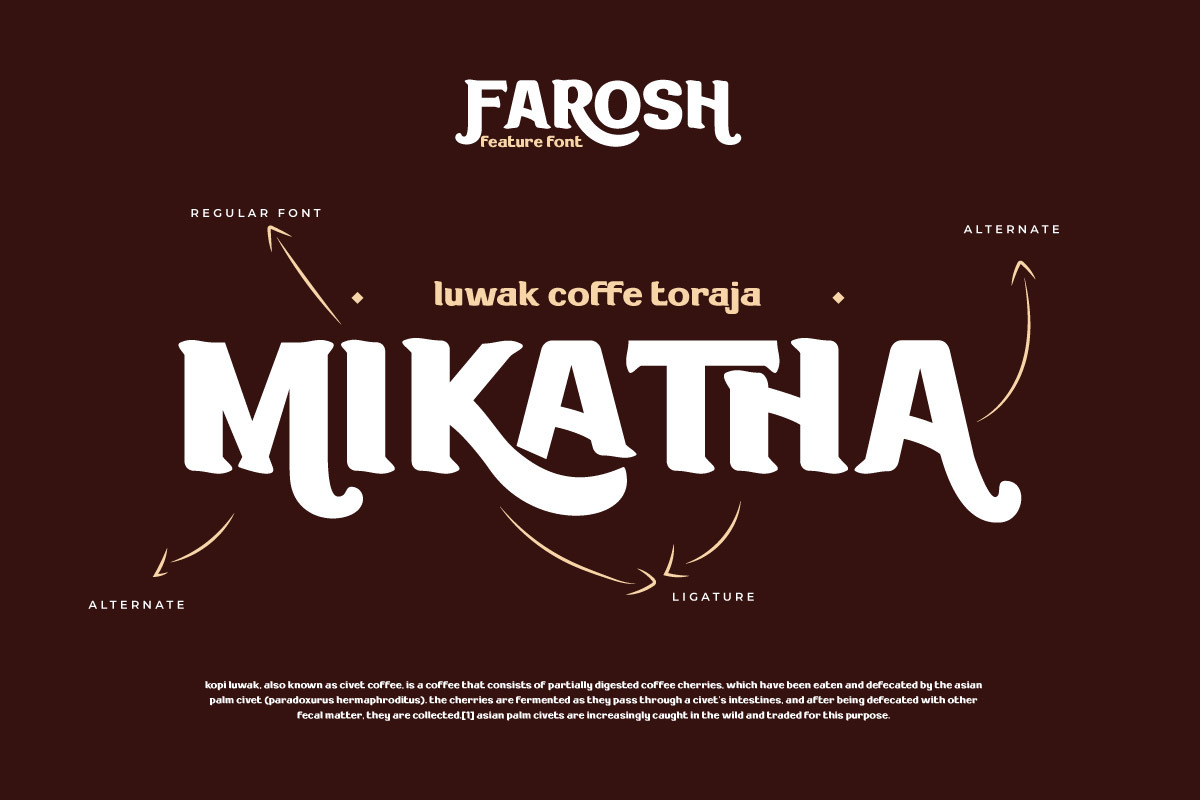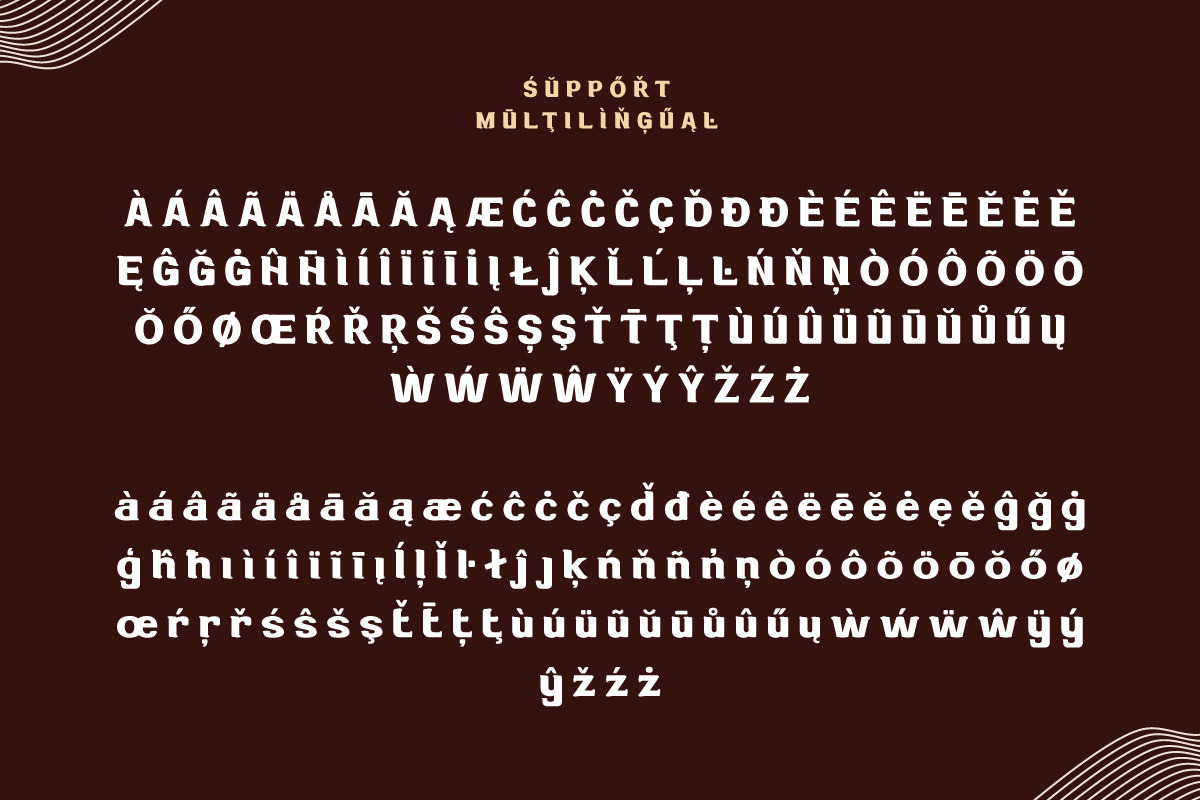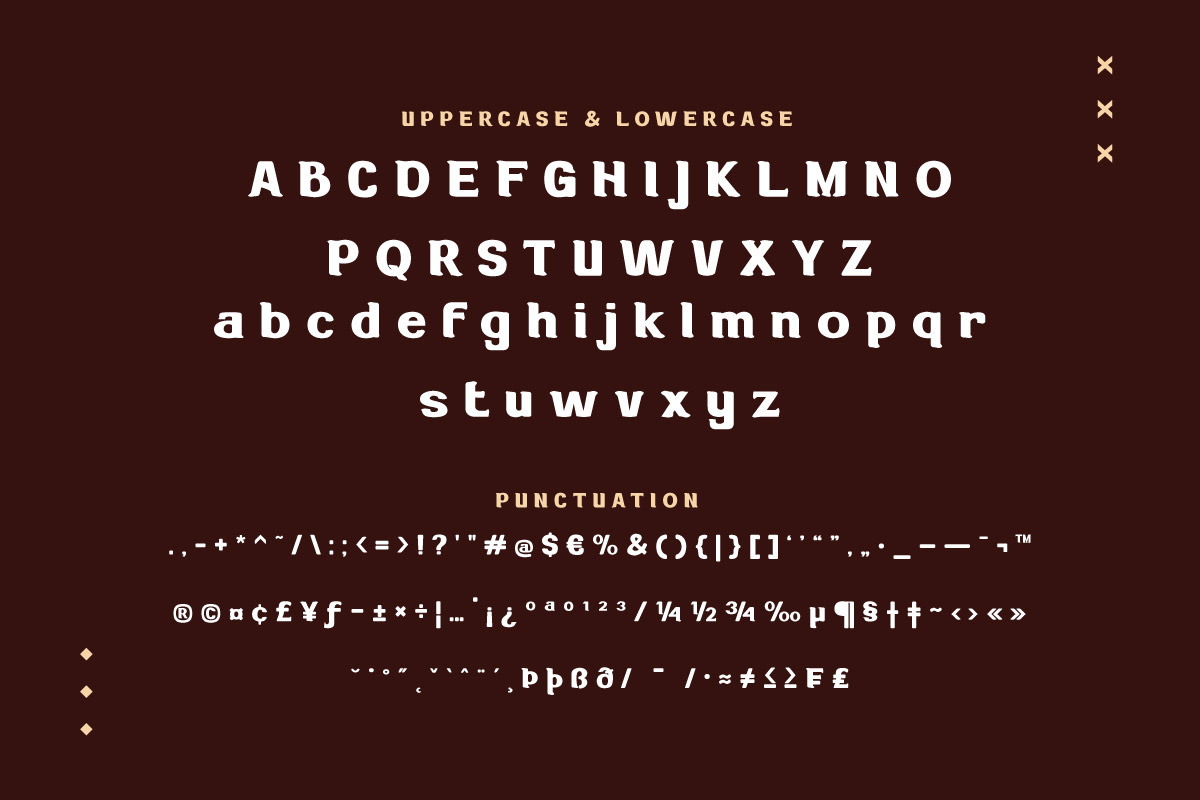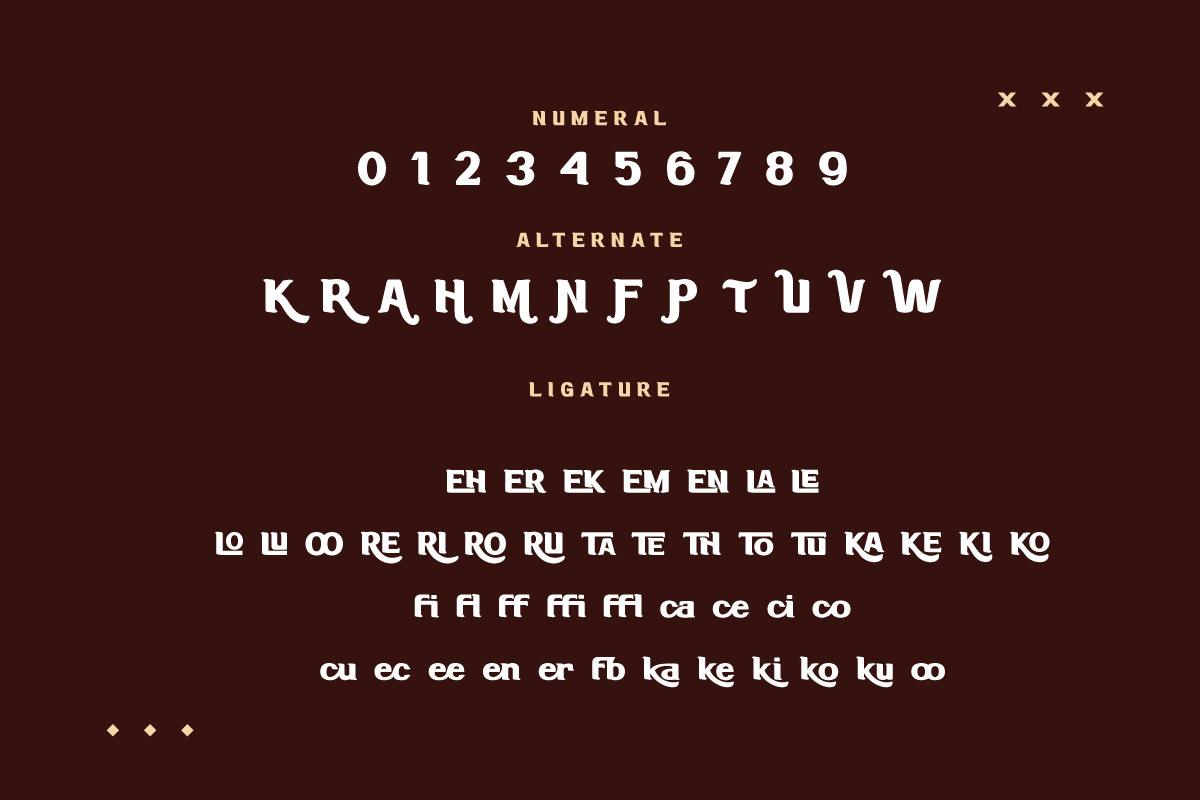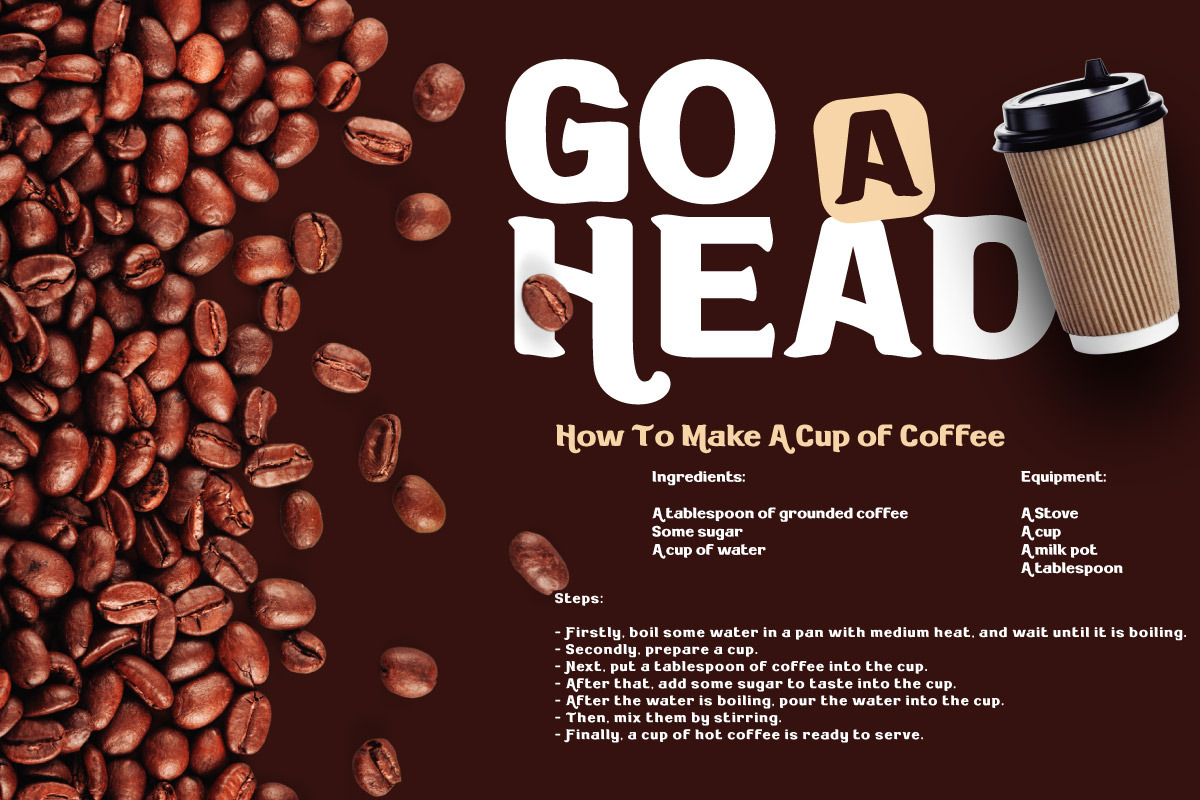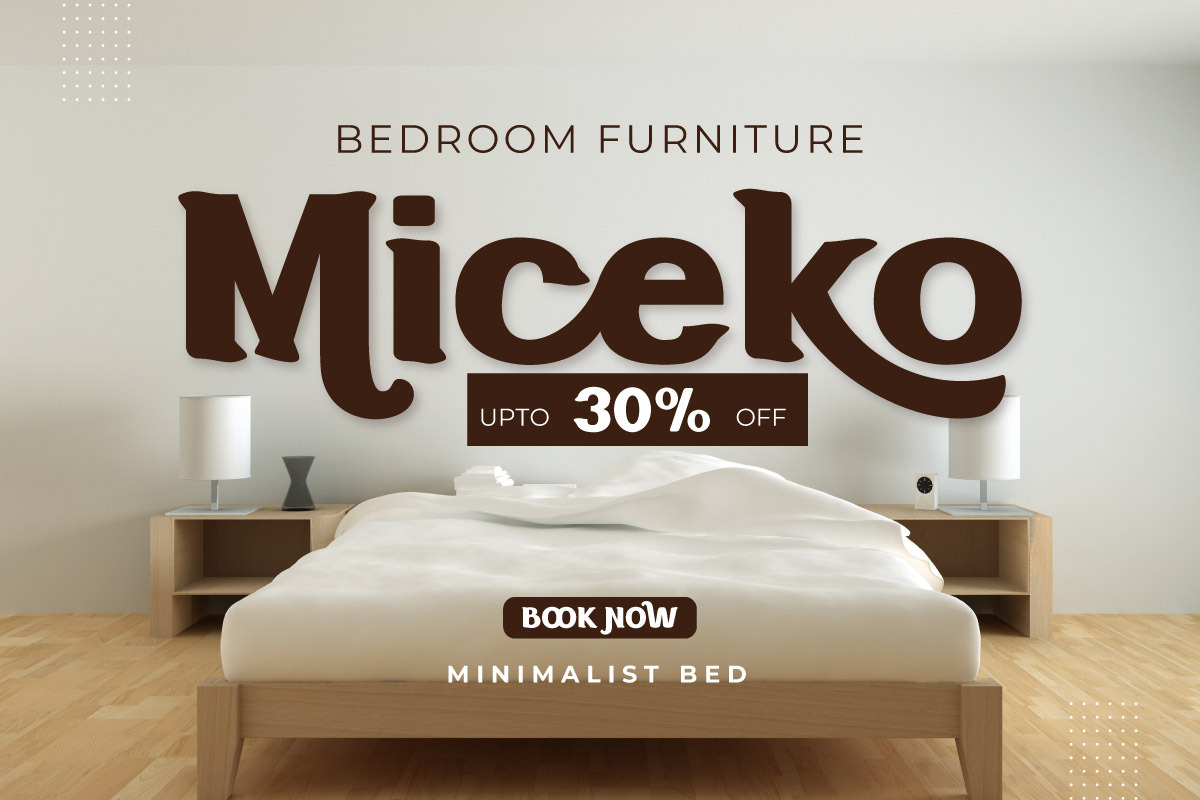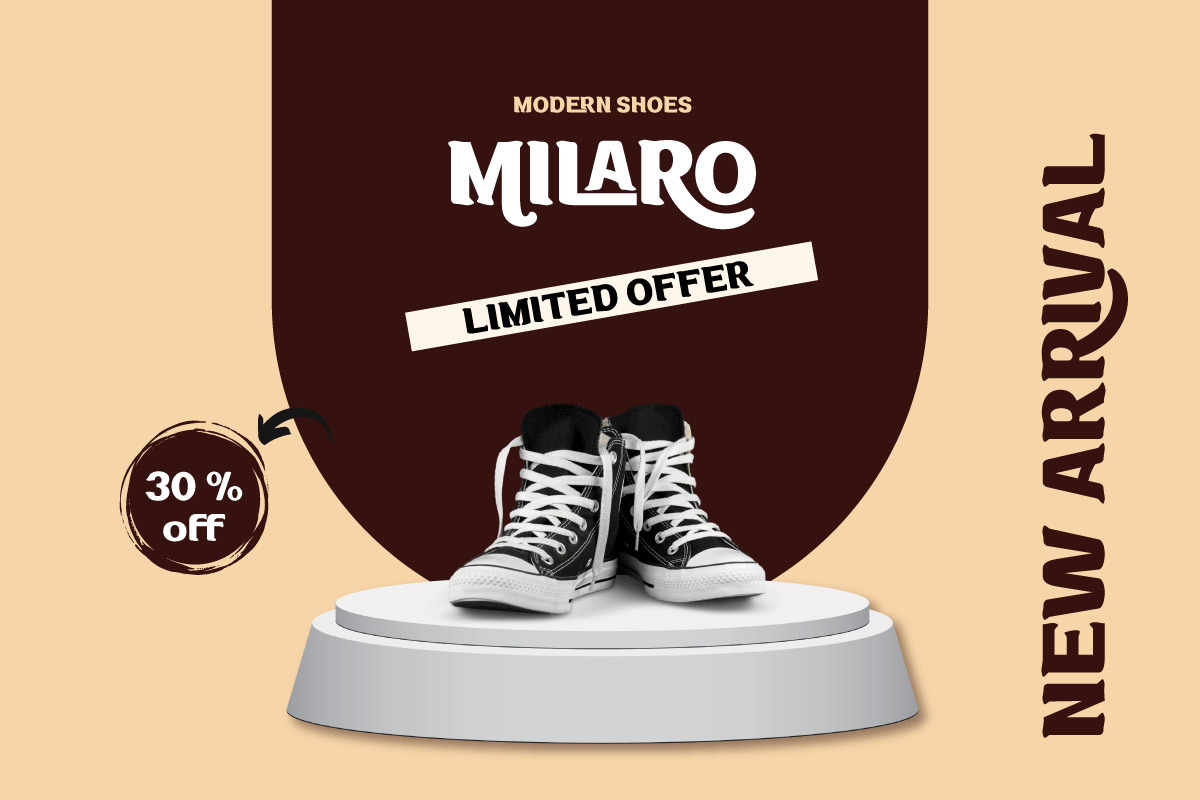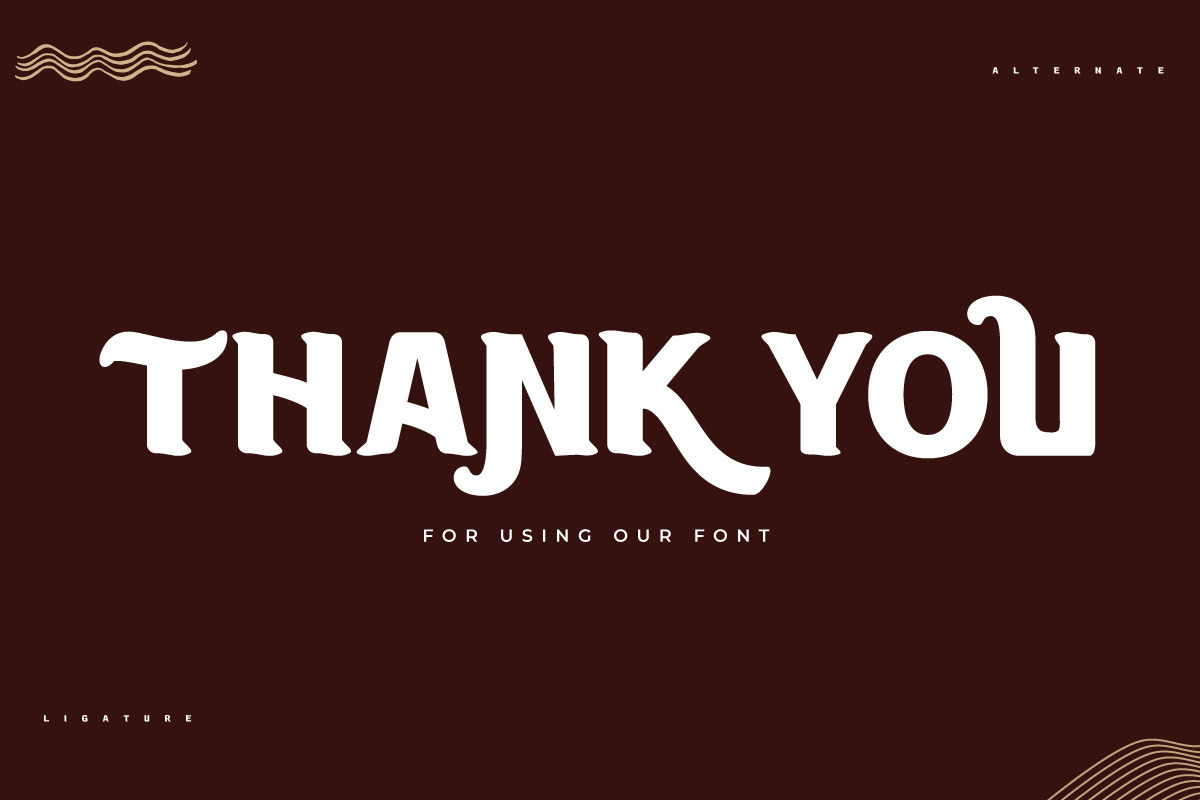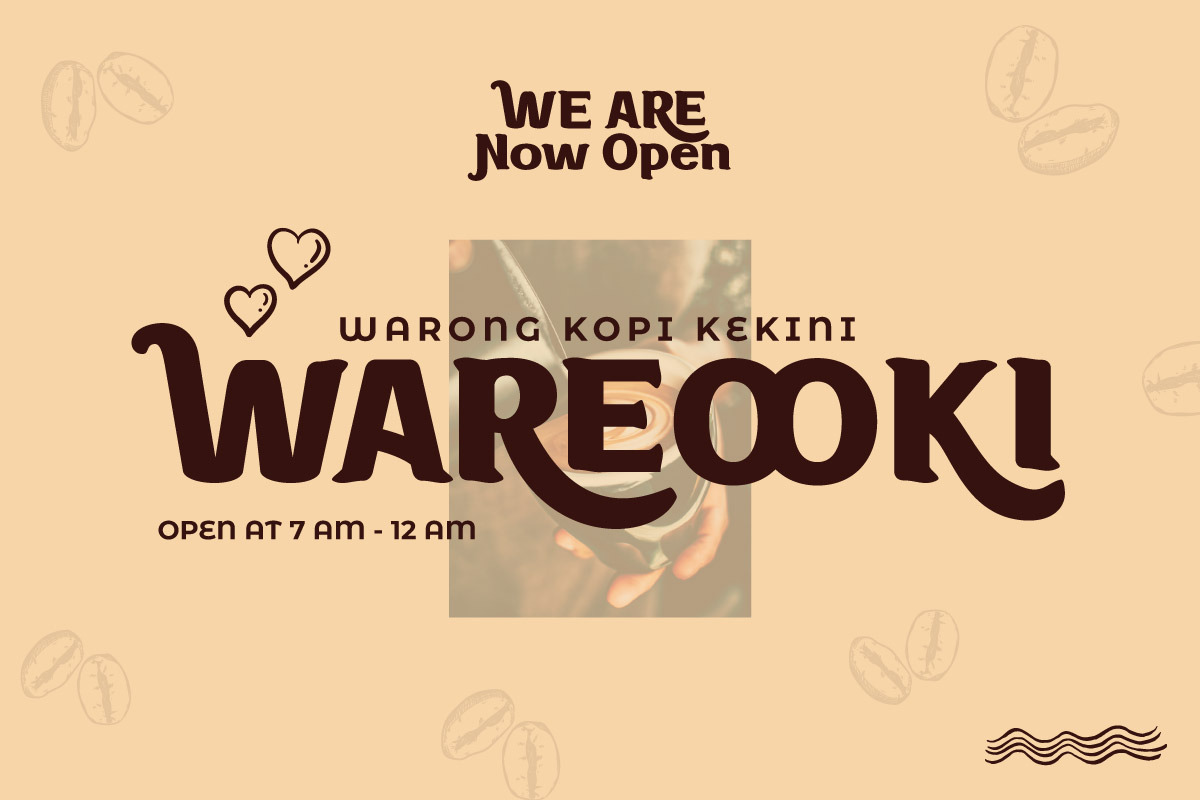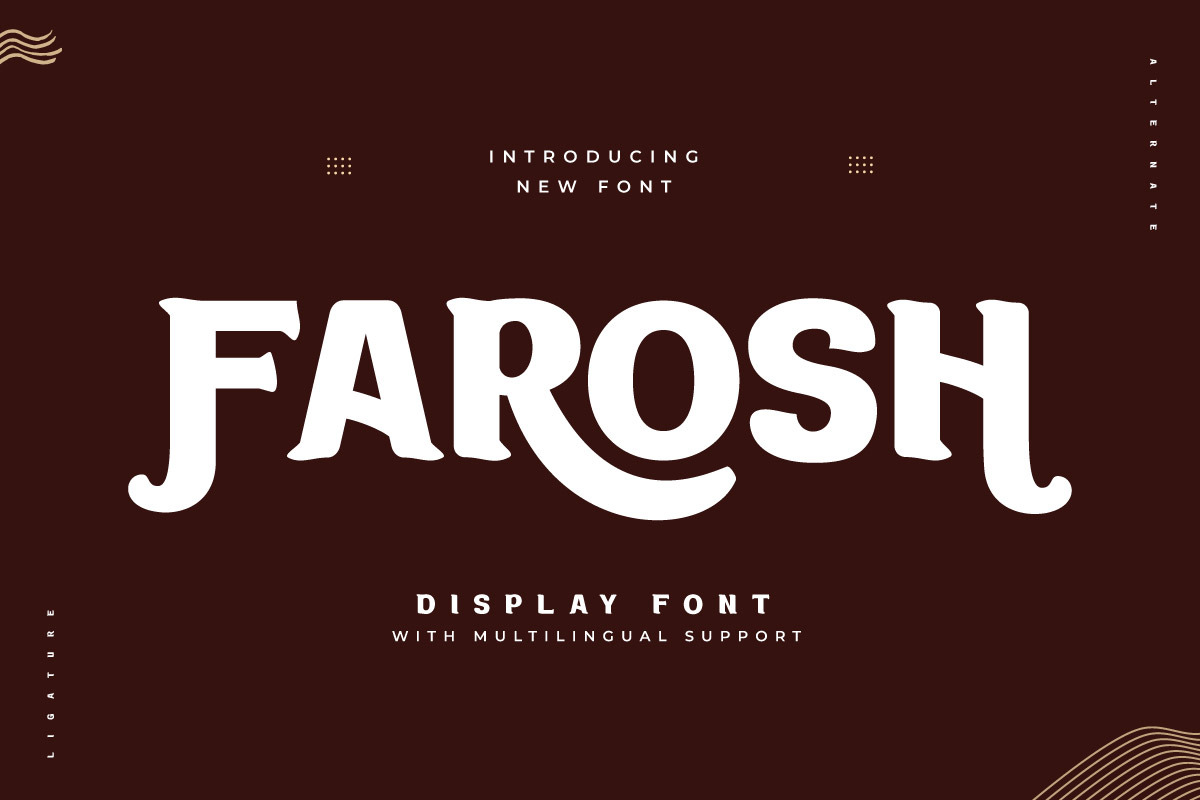
Farosh - Display Font
Farosh is a display font that’s all about making a bold statement. Its distinctive characters are designed to grab attention and hold it. Whether you’re creating a striking logo or an unforgettable headline, Farosh ensures your designs will make a strong impression. It’s not just a font, it’s a declaration of intent.
- Fonts include Multilingual: Support for 85 languages. Afrikaans, Albanian, Asu, Basque, Bemba, Bena, Breton, Catalan, Chiga, Cornish, Croatian, Czech, Danish, Dutch, Embu, English, Esperanto, Estonian, Filipino, Finnish, French, Friulian, Galician, Gusii, Hungarian, Indonesian, Irish, Italian, Kabuverdianu, Kalenjin, Kamba, Kikuyu, Kinyarwanda, Latvian, Lithuanian, Lower, Sorbian, Luo, Luxembourgish, Luyia, Machame, Makhuwa-Meetto, Makonde, Malagasy, Maltese, Manx, Meru, Morisyen, North, Ndebele, Norwegian Bokmål, Norwegian Nynorsk, Nyankole, Oromo, Polish, Portuguese, Quechua, Romanian, Romansh, Rombo, Rundi, Rwa, Samburu, Sango, Sangu, Scottish, Gaelic, Sena, Serbian, Shambala, Shona, Slovak, Slovenian, Soga, Somali, Spanish, Swahili, Swedish, Swiss German, Taita, Teso, Turkish, Upper Sorbian, Uzbek (Latin), Volapük, Vunjo, Walser, Zulu.